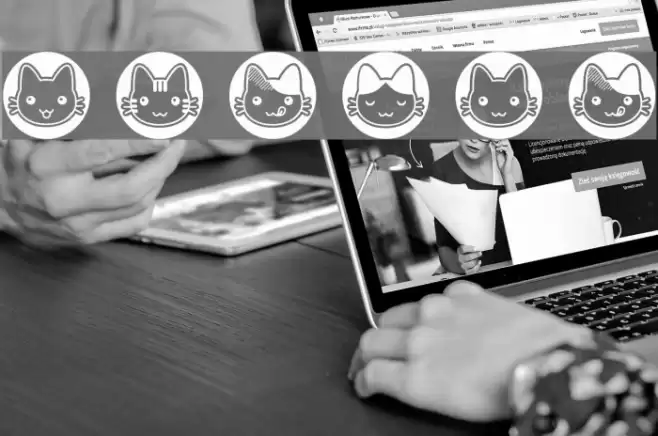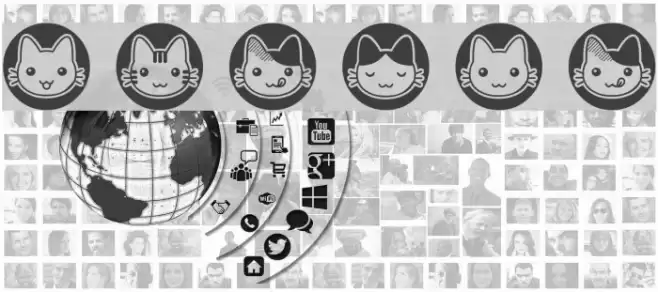
fb_nyan Font
fb_nyan Description
A playful decorative font featuring various illustrated cat faces as glyphs, each with unique expressions and accessories, presented in both outline and filled circle styles. The font is highly stylized and uses simple, clean lines for a whimsical effect.
A decorative font of illustrated cat faces with playful expressions from Dingbats fonts.
- Proposed Projects: Children’s books, greeting cards, playful branding, stickers, social media graphics, and decorative headings.
- Overall Style: Playful, Cute, Decorative
- Use Case: Logos, Headlines, Decorative elements